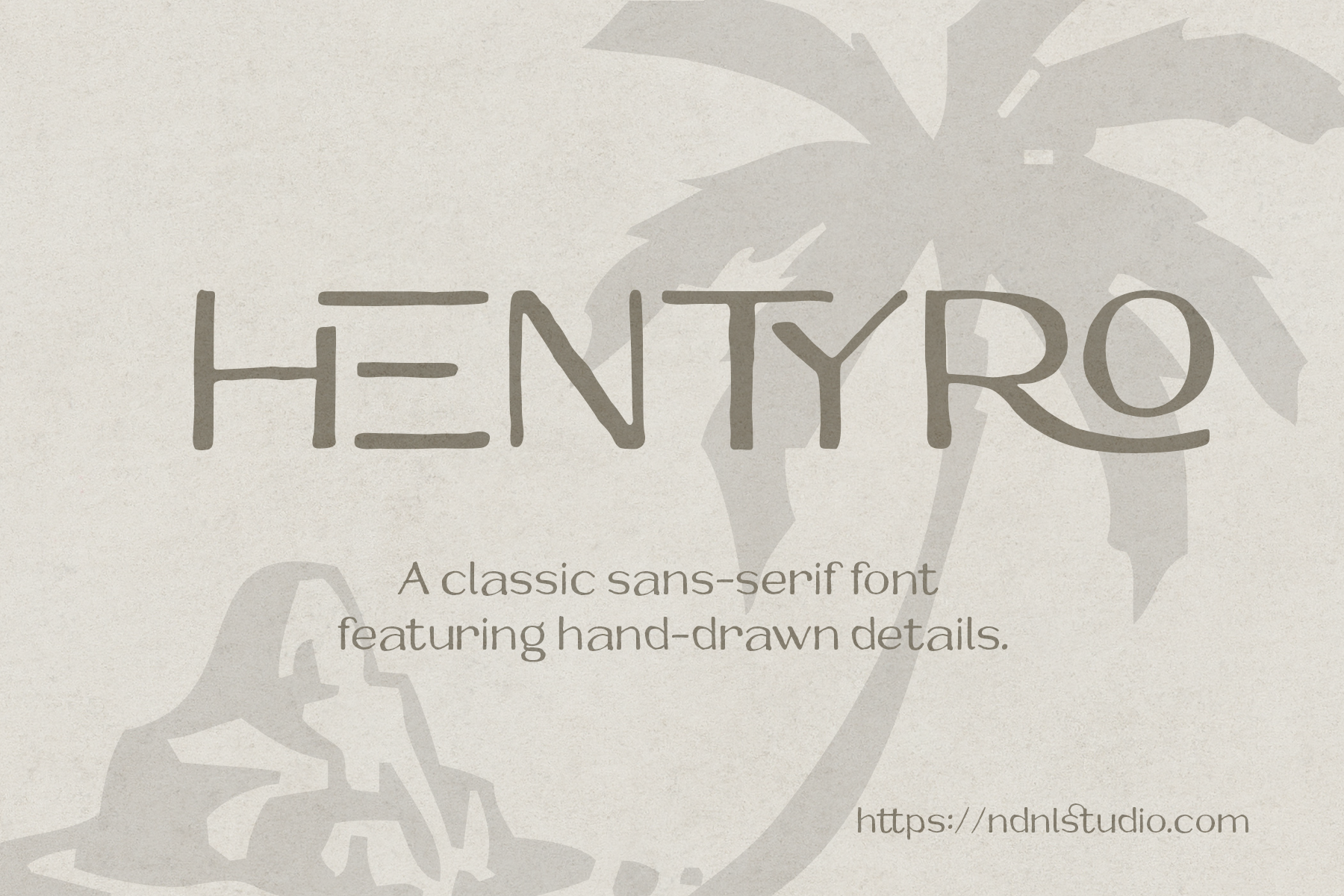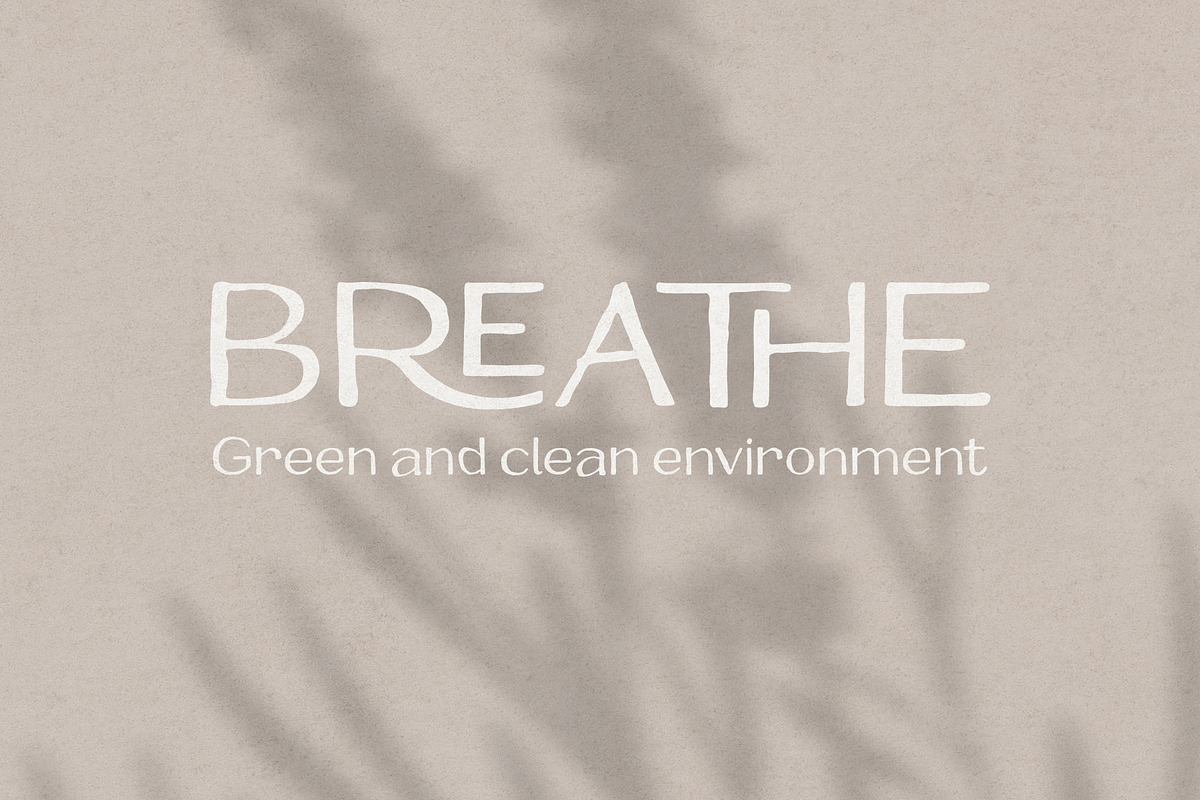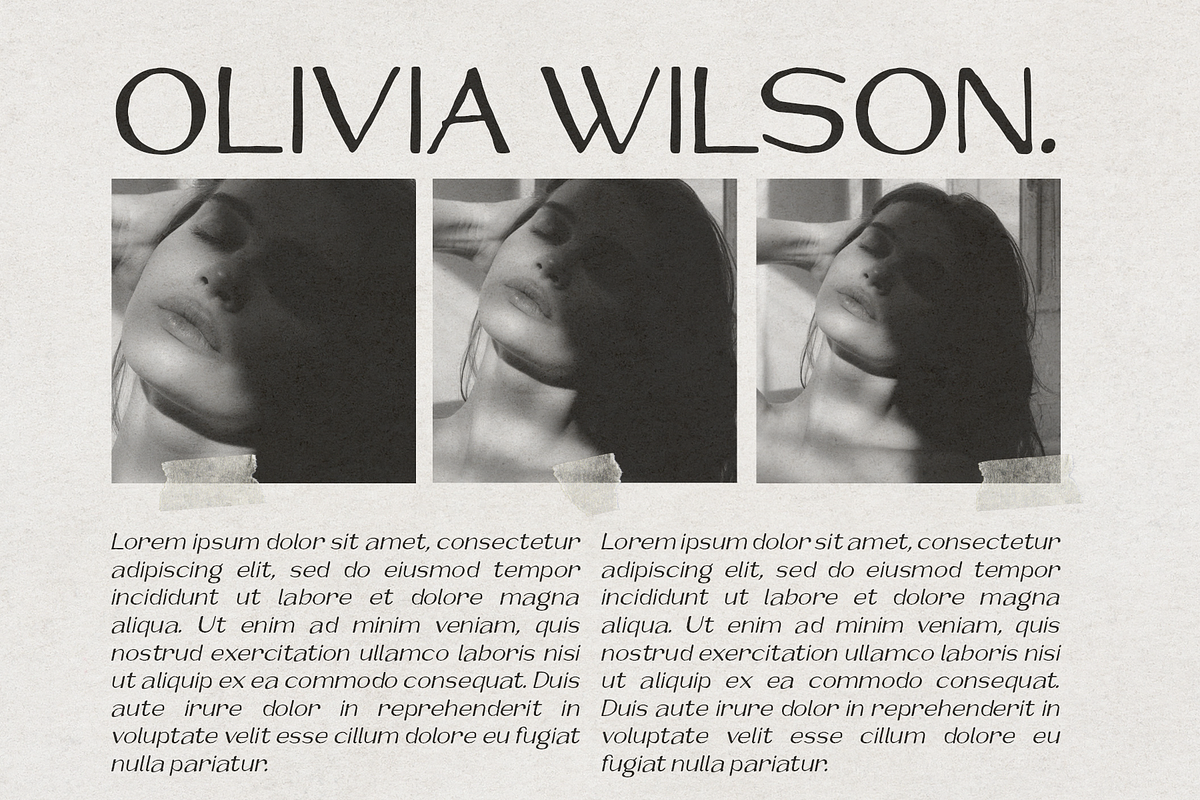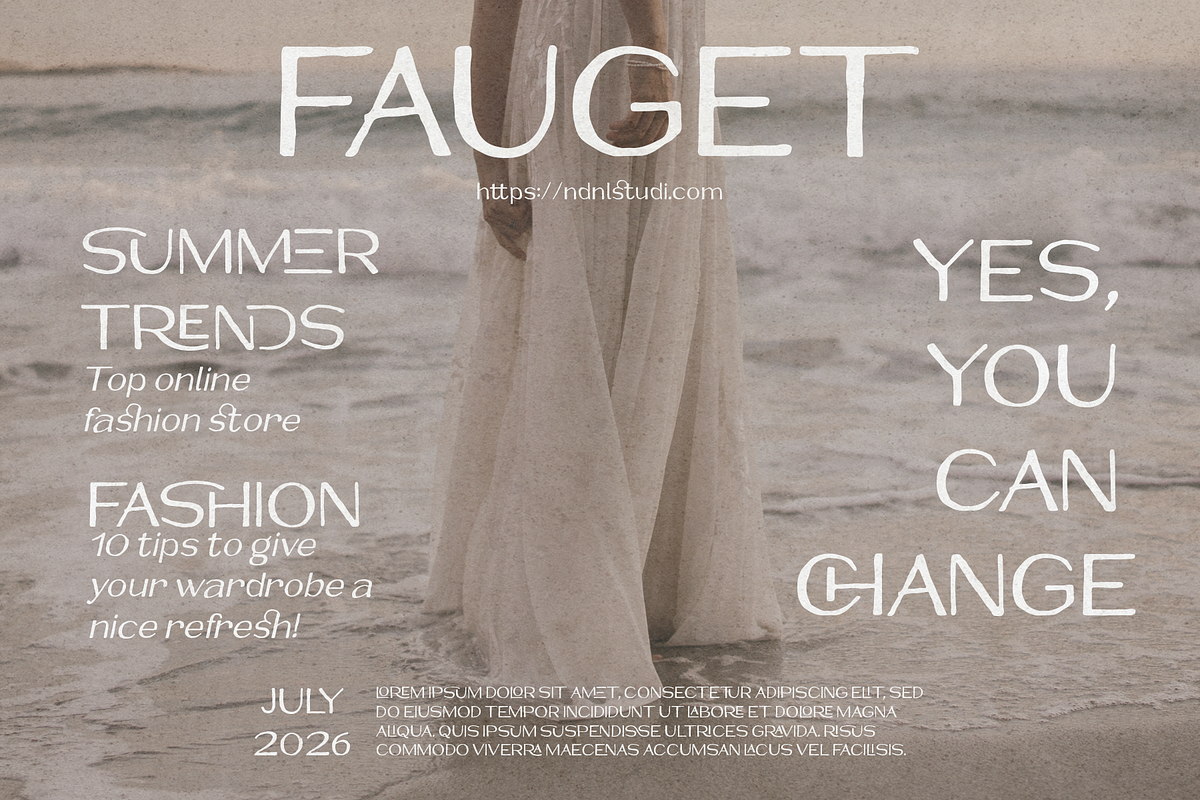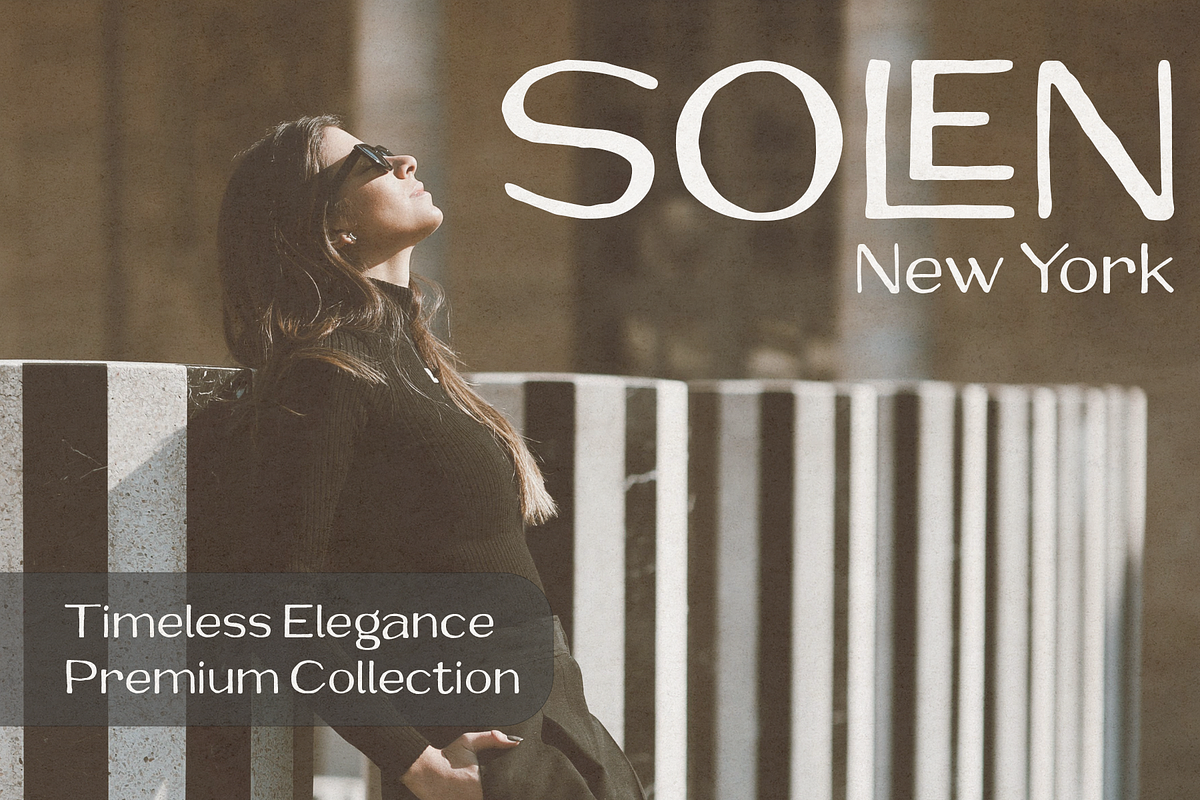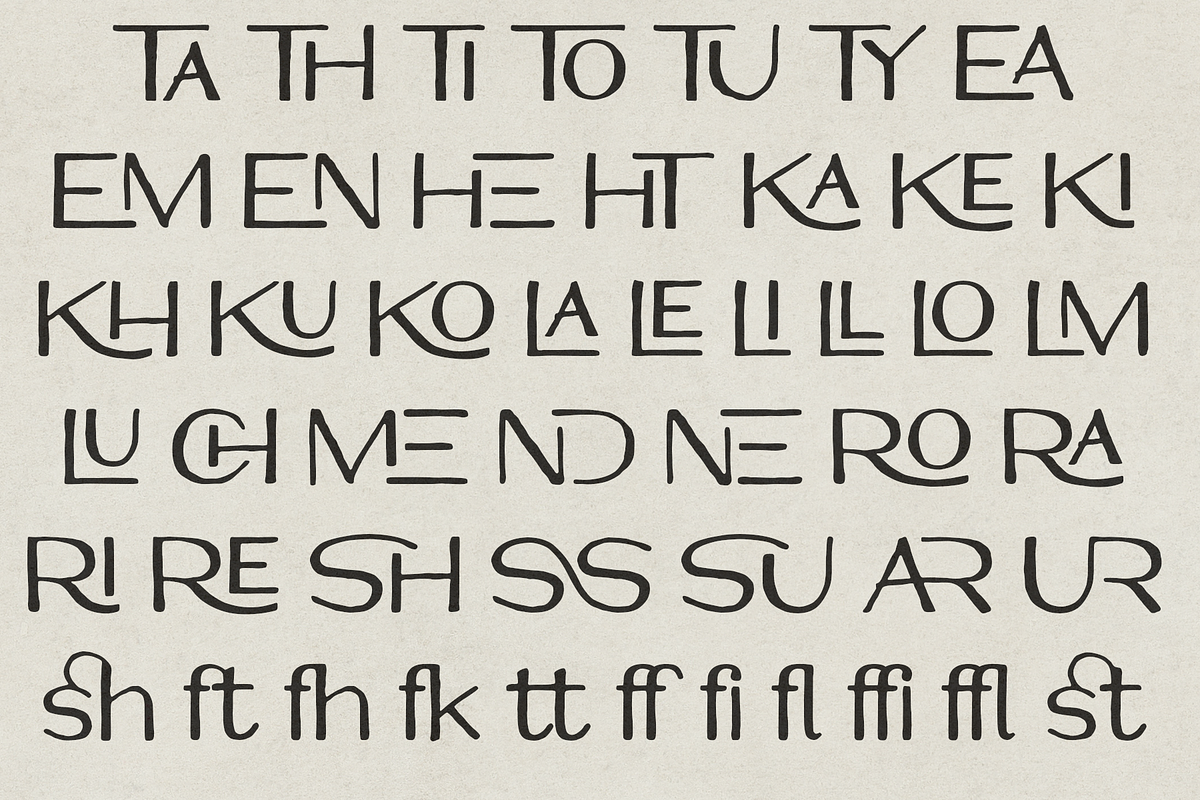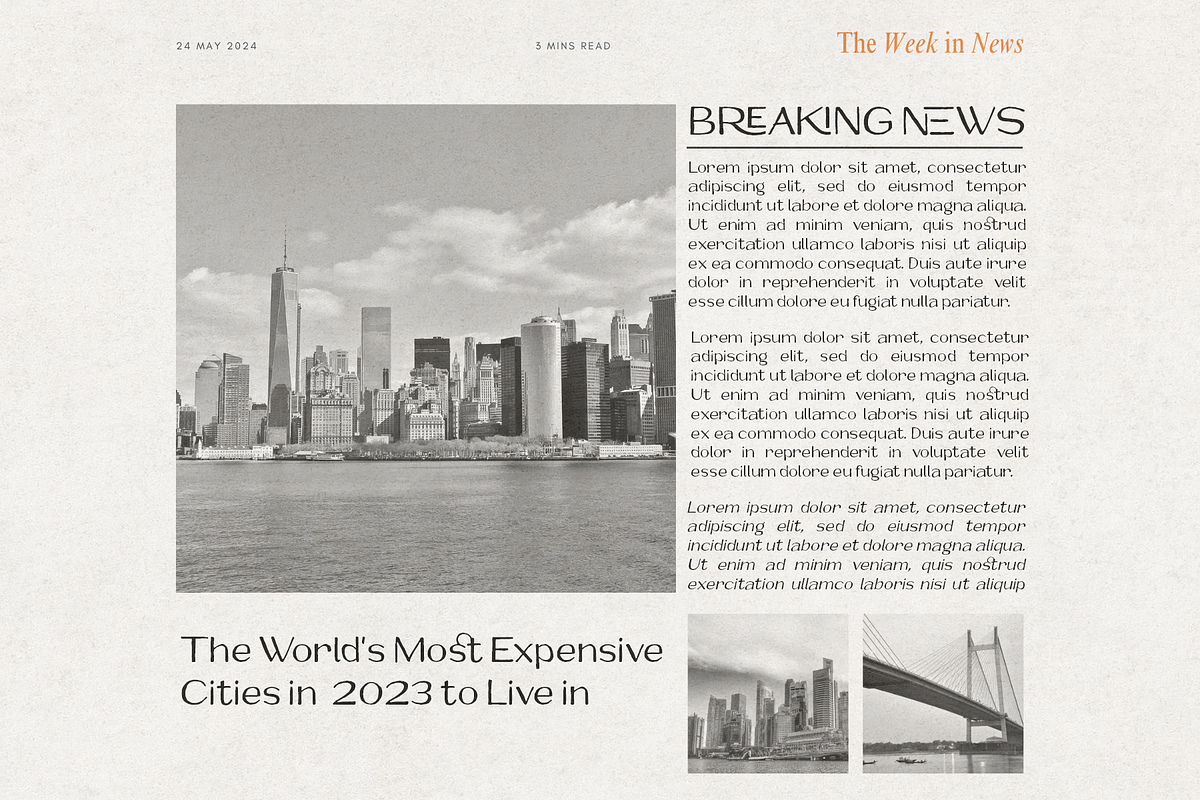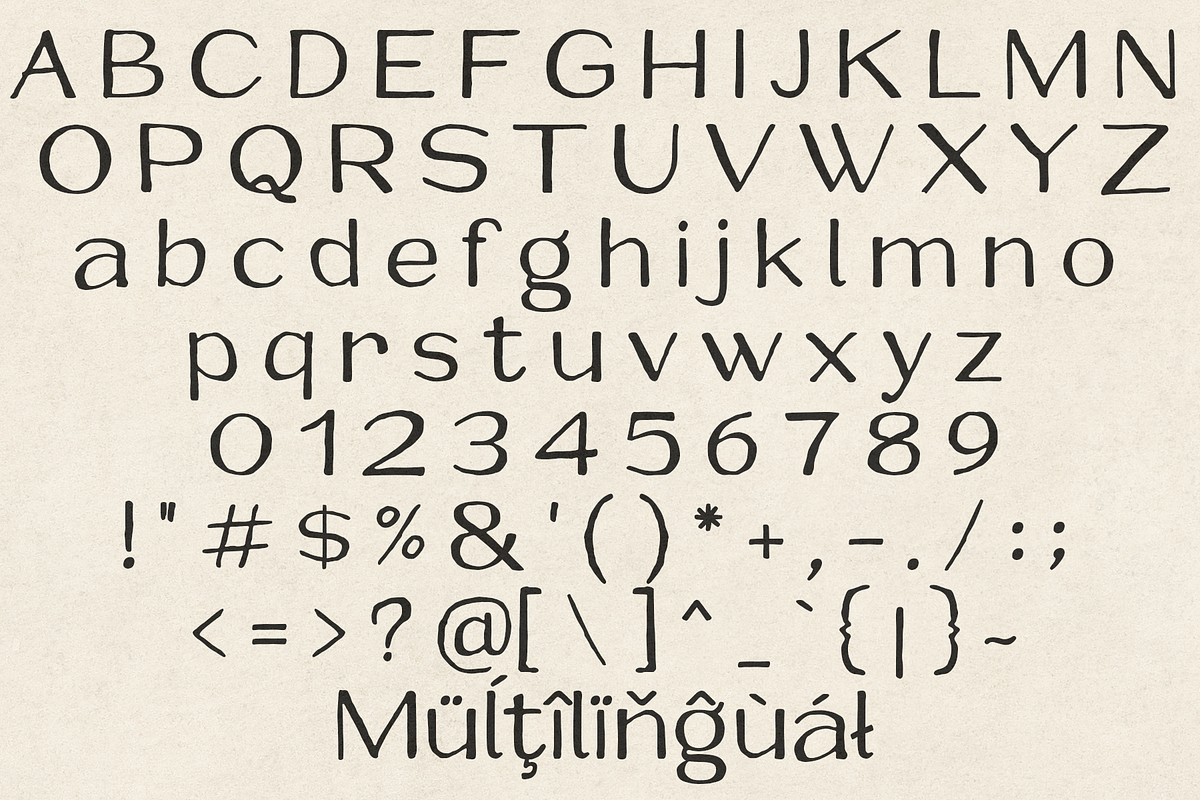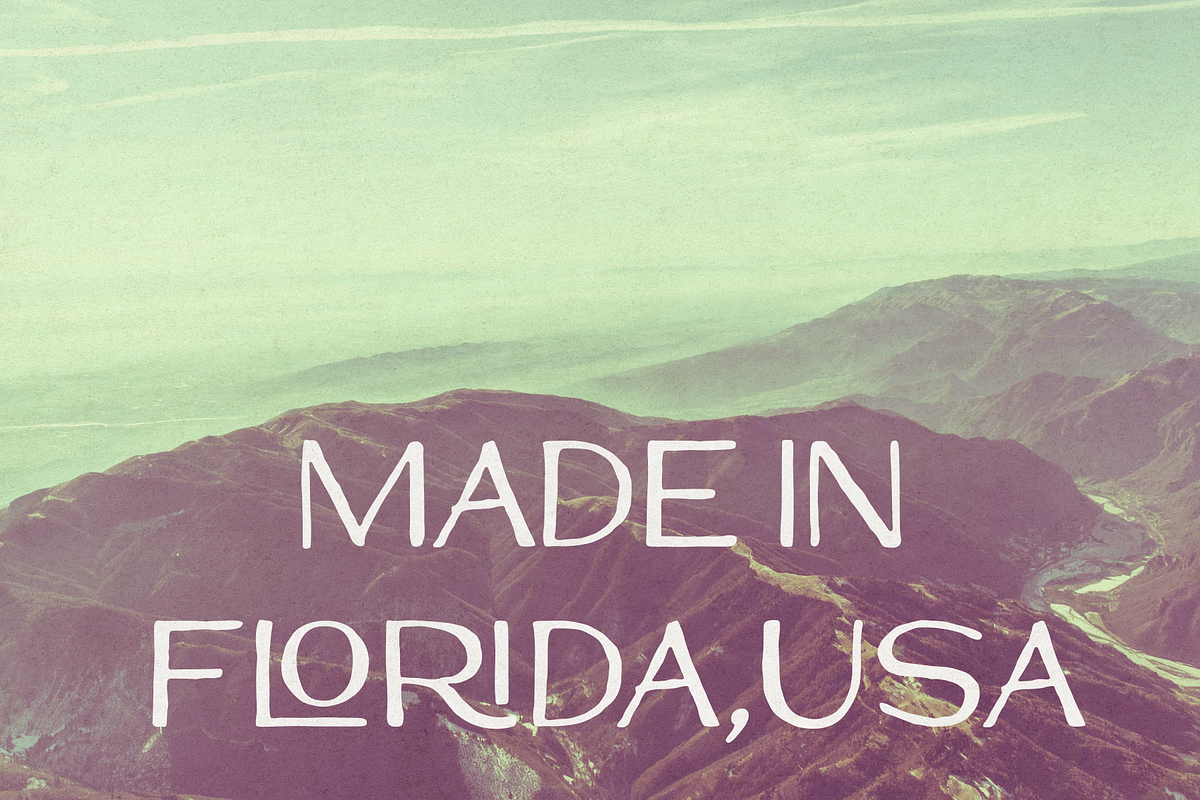
Hentyro – Sans Serif Font
Hentyro is a modern sans-serif font with subtle hand-drawn details that give each letter a natural and distinctive appearance. Clean, balanced, and easy to read, it offers a perfect blend of simplicity and personality, making it suitable for both contemporary and creative designs.
From branding and logos to packaging, editorial layouts, posters, and social media content, Hentyro delivers a warm, handcrafted feel while maintaining a clean and professional look.
– Character set A-Z
– Uppercase & Lowercase
– Numerals & Punctuation
– Accented Characters (West Europe)